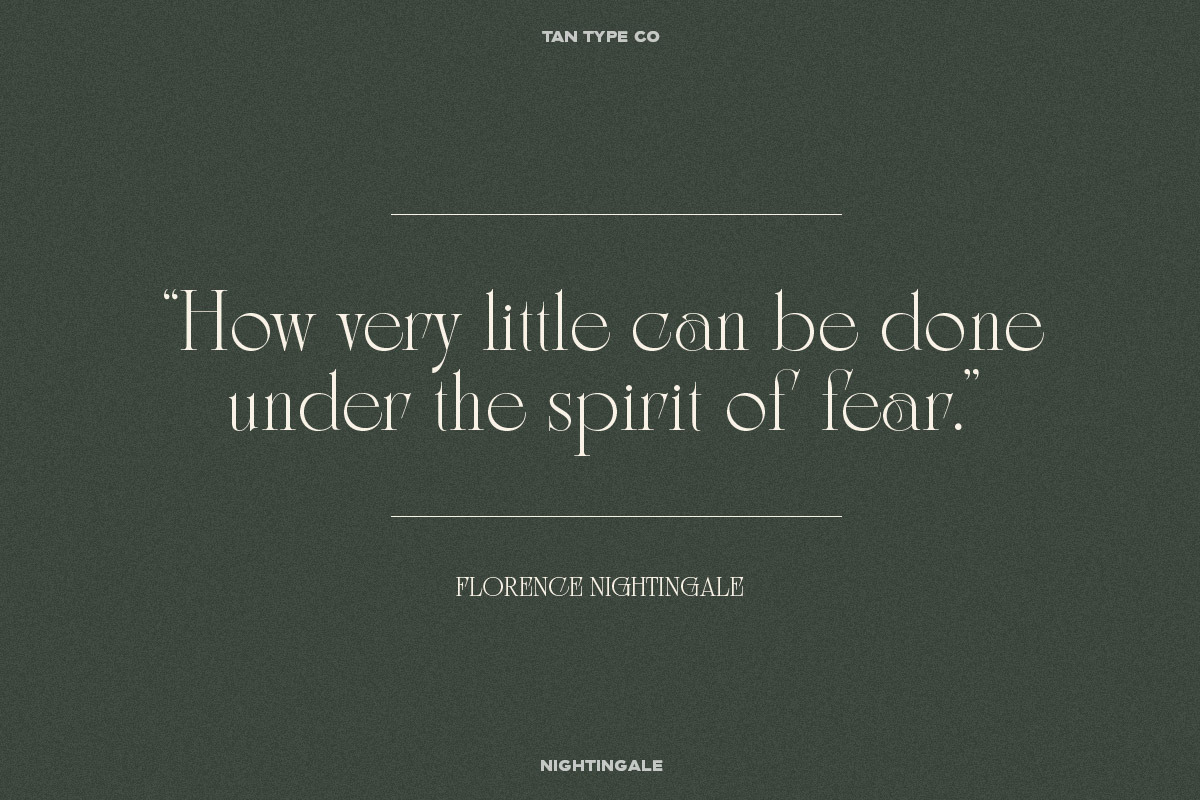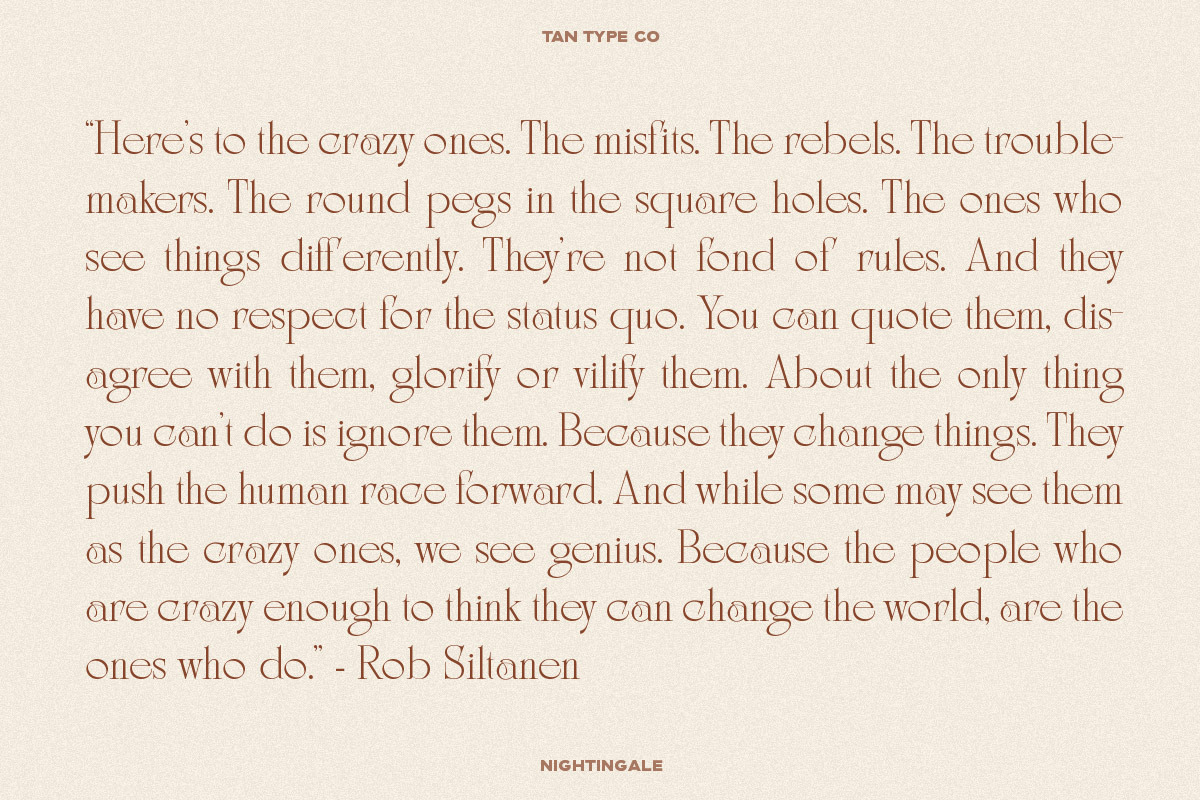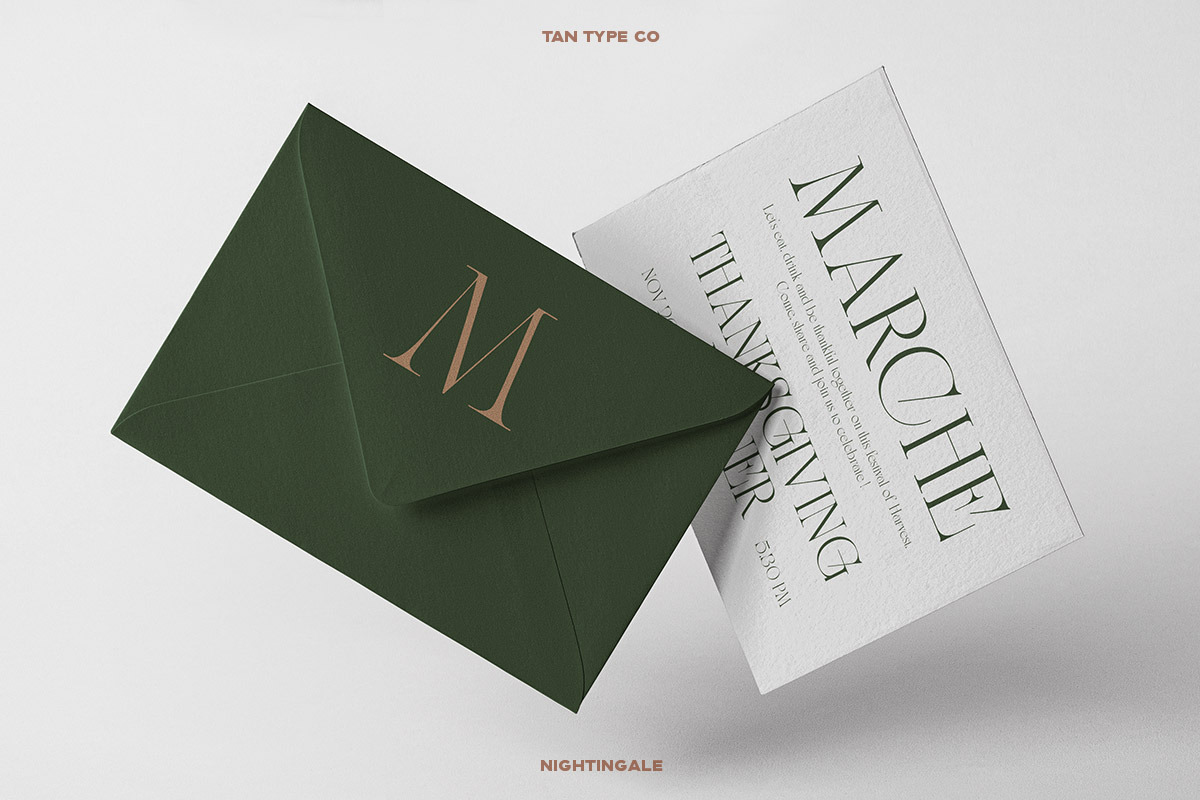
TAN - NIGHTINGALE
TAN - NIGHTINGALE is an art deco inspired with dramatically elongated serif. With its clean and modern feel, Nightingale will definitely adds elegance when used.